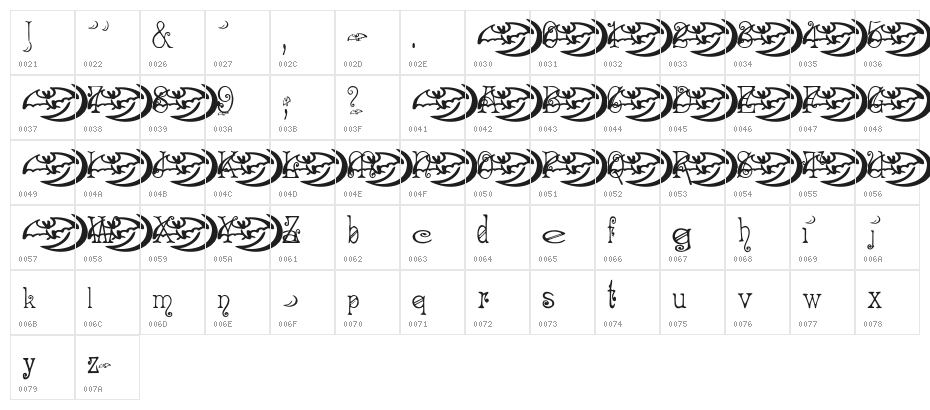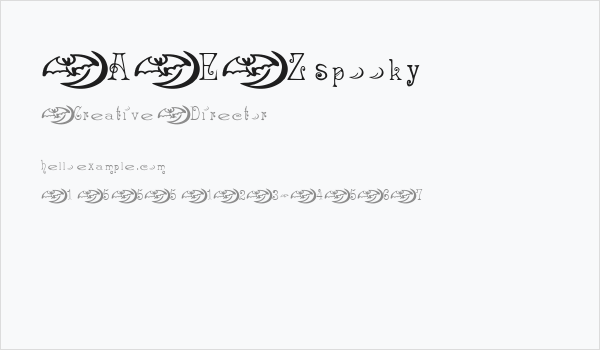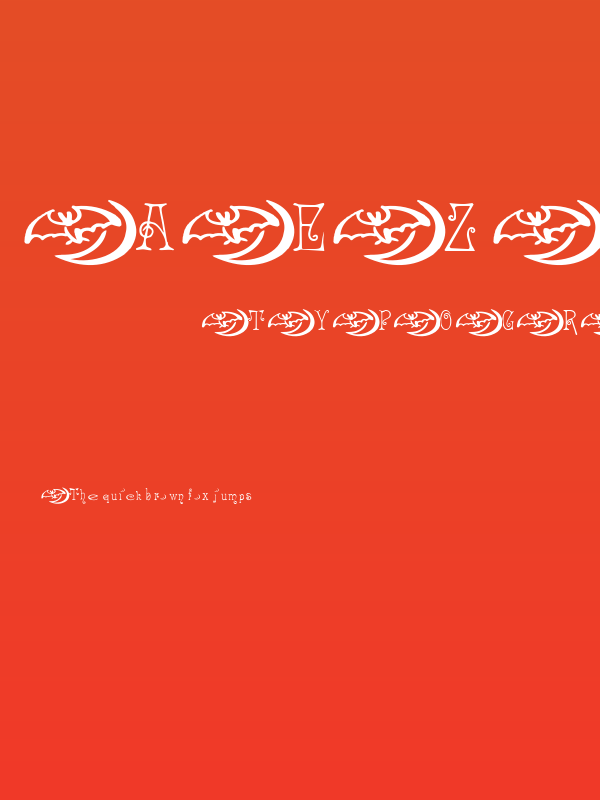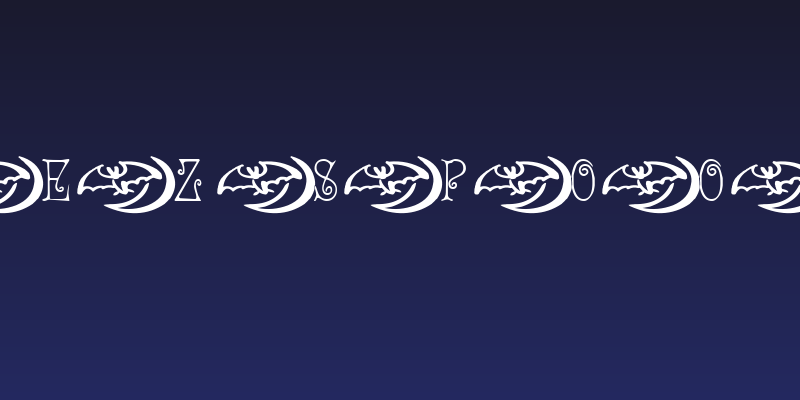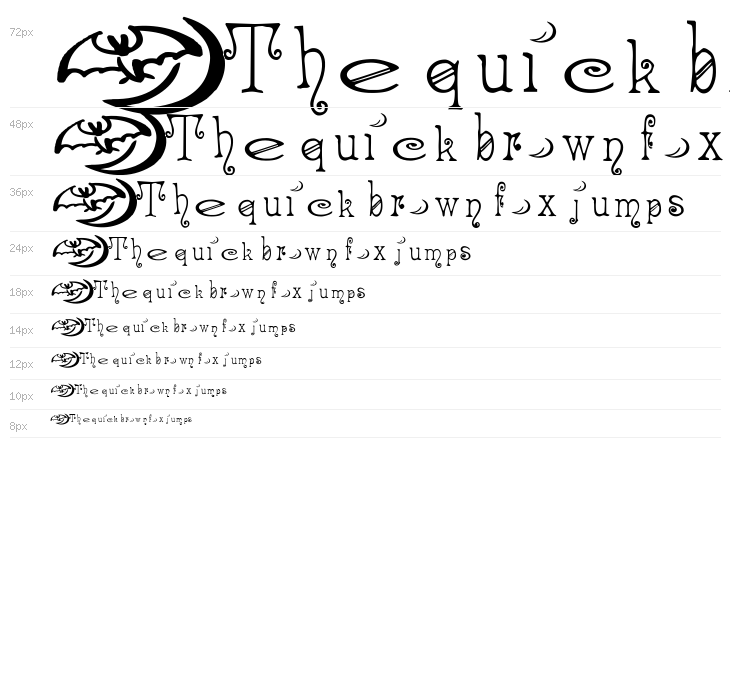
AEZ spooky Font
AEZ spooky Description
This font features a whimsical and eerie design, perfect for Halloween or spooky-themed projects. The characters are embellished with bat motifs and have a playful, yet slightly sinister appearance. The uppercase letters are adorned with decorative elements, while the lowercase letters maintain a quirky, uneven style. Numbers and special characters continue the theme with similar embellishments, creating a cohesive and thematic look. The font's unique style makes it ideal for creative and festive designs.